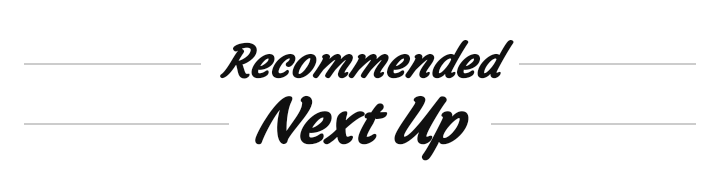
Does anyone recognize this font?
I’m Found your Font. your Font is from Google Fonts.
Courgette
Yup, it seems like a match, although the font in the image seems to be set in bold and it is more “italicky”.